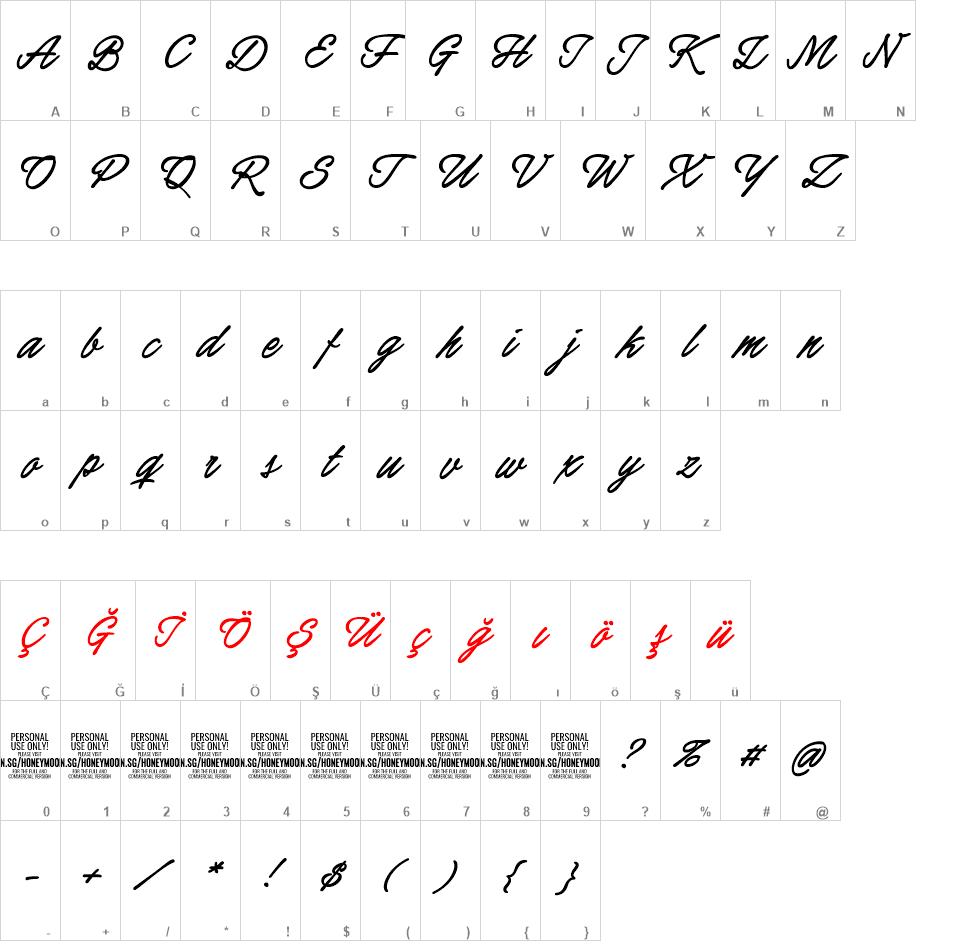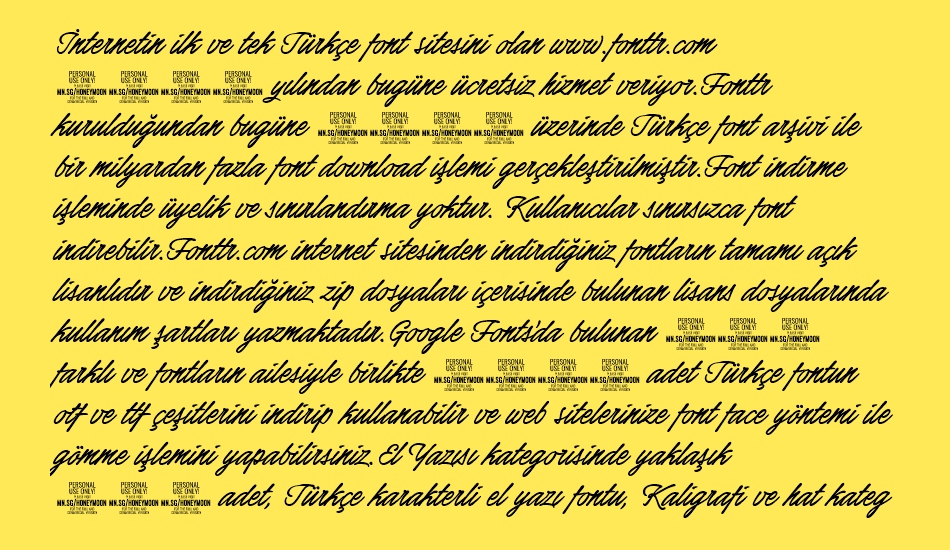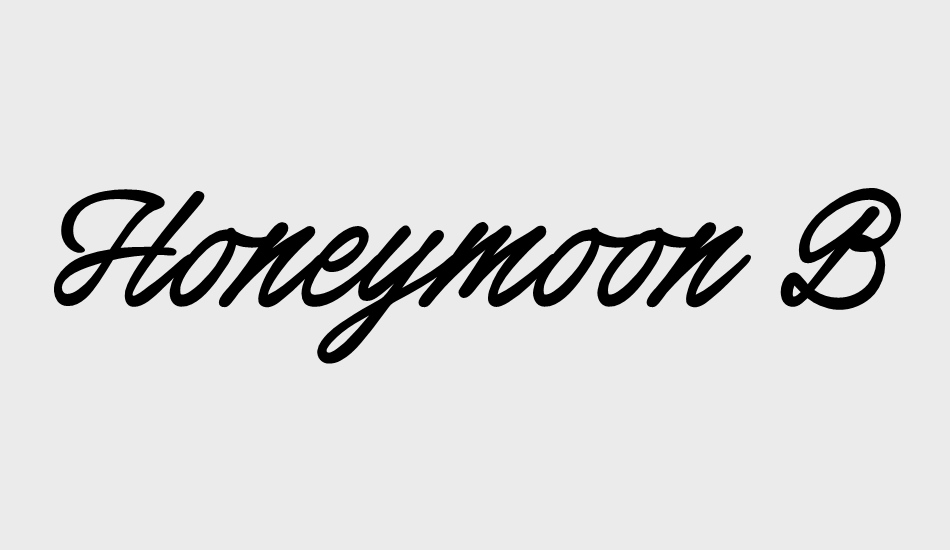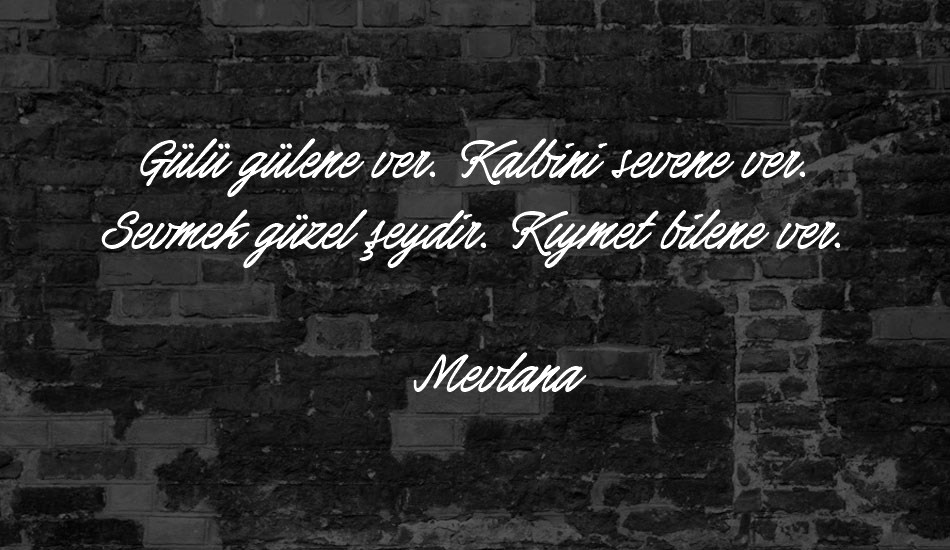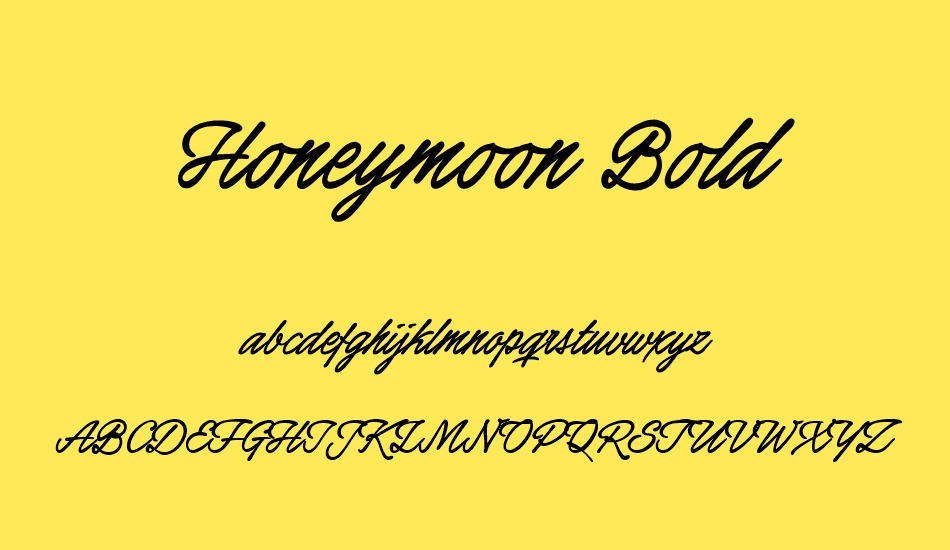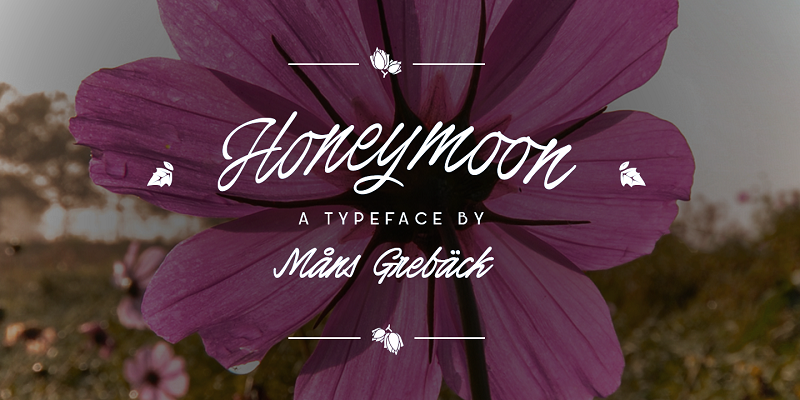
Honeymoon font
Honeymoon is a handwritten script typeface.
It stands for confidence, effectivity and honesty.
The letters' sharp and thin ink strokes cuts through the sentences like a razor.
The font comes in both Regular and Bold, and includes an Upright version.
It has multiple stylistic and contextual alternates, such as connecting pairs,
final and initial alternates to make the lettering look as natural as possible.